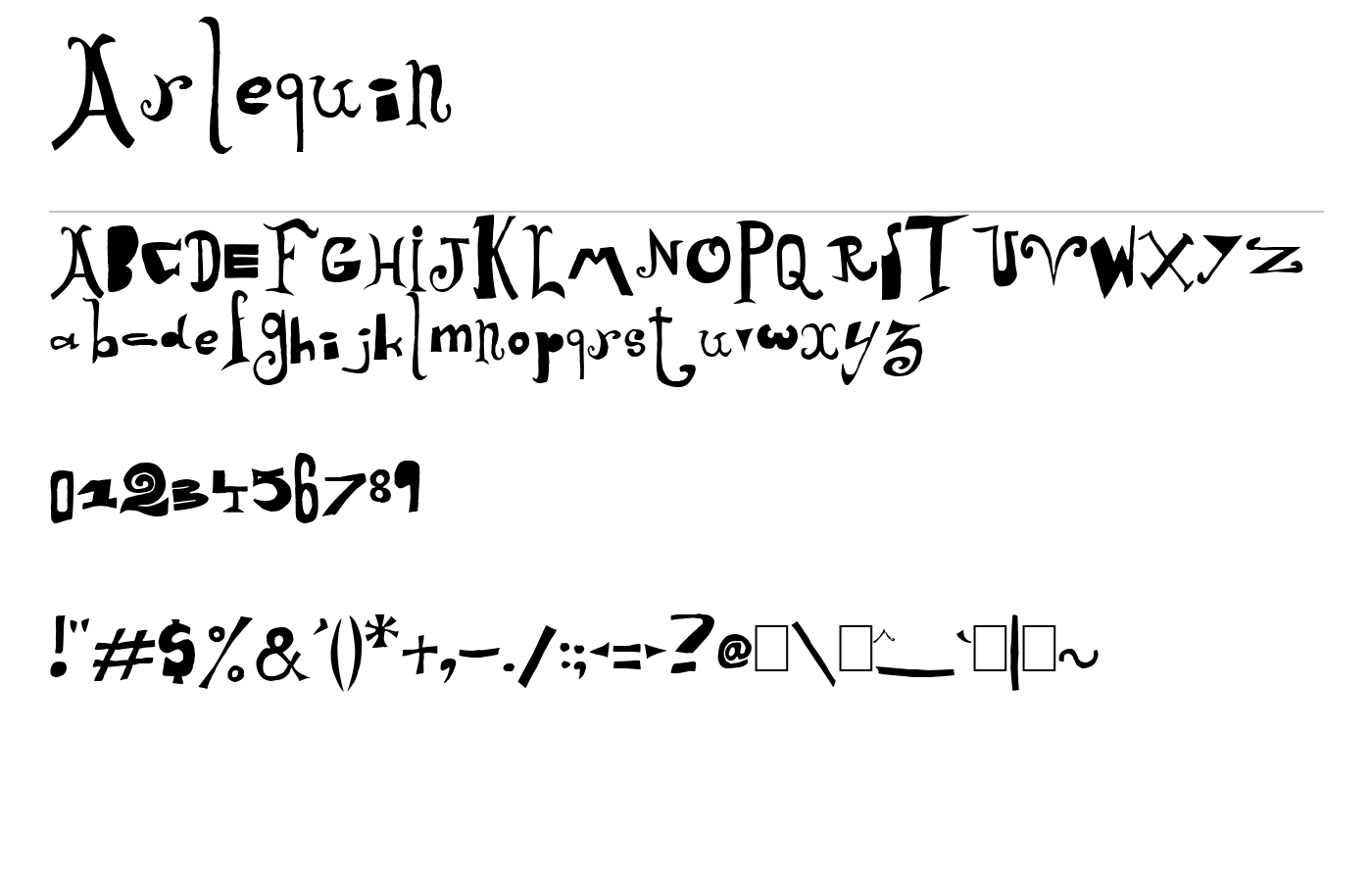
Arlequin is a whimsical and playful decorative font with an irregular, hand-drawn style that features varied stroke widths and quirky, unique letterforms. Its uneven shapes and lively character make it ideal for creative projects that want to convey a fun, artistic, or theatrical vibe. This font works especially well in posters, logos, and invitations where personality and visual impact are key.
Arlequin Font
| Font family | Arlequin Font |
| Designer | Imagex |